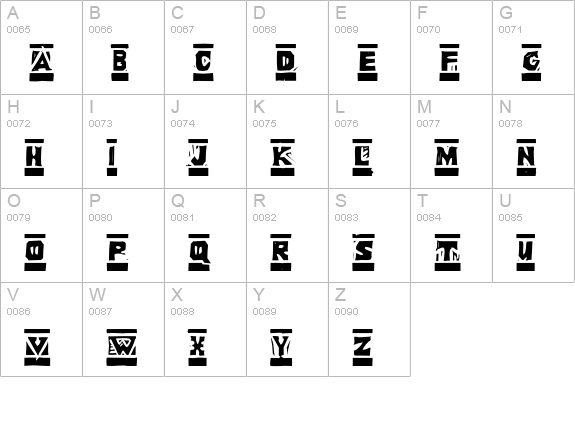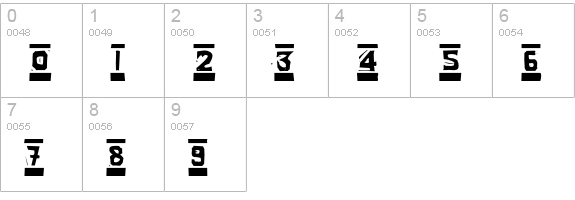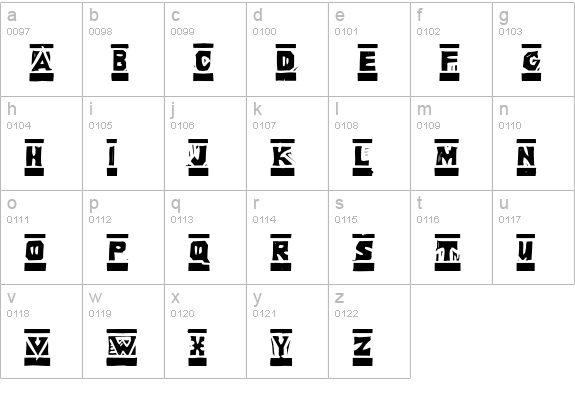
P22Woodcut Font Details
P22Woodcut font is a stunning typeface that effortlessly captures the essence of traditional woodcut printing. Its unique and intricate design is reminiscent of the handcrafted artistry seen in vintage woodcut illustrations. With its rough edges, bold lines, and timeless appeal, P22Woodcut font adds a touch of rustic charm to any project. This font is not only visually captivating, but it also possesses a sense of authenticity that harkens back to the golden age of print. Each character of P22Woodcut font exudes a sense of craftsmanship, as if it were meticulously carved into wood by a skilled artisan. This attention to detail gives the font a tactile quality that is sure to make a lasting impression. What makes P22Woodcut font even more remarkable is that it is freely available to download at FontsMarket.com. This means that anyone can easily access and utilize this beautiful typeface for their personal or commercial projects without any cost. Whether you're creating posters, book covers, or even branding materials, P22Woodcut font provides an elegant and distinct aesthetic that is sure to elevate your design. Not only does P22Woodcut font bring a touch of nostalgia to your work, but it also offers versatility in its application. The font can be used in a variety of contexts, from vintage-inspired designs to contemporary projects seeking a unique and eye-catching element. Its wide range of potential applications makes it a valuable asset for designers and creatives looking to add a touch of timeless elegance to their work. In conclusion, P22Woodcut font is a visually captivating and authentic typeface that effortlessly captures the beauty of traditional woodcut printing. With its rough edges, bold lines, and timeless appeal, it brings a touch of rustic charm to any design project. The fact that it is freely available to download at FontsMarket.com makes it even more accessible and valuable for designers and creatives looking to add a unique and captivating element to their work.